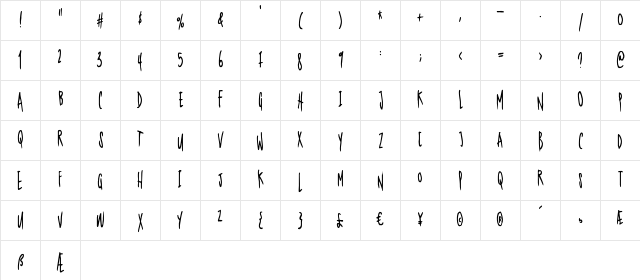
Nerdproof Regular Free Font
Nerdproof Regular
Design Context for Nerdproof
Nerdproof is a composed and adaptable typeface that performs quietly and consistently across a wide range of design contexts.